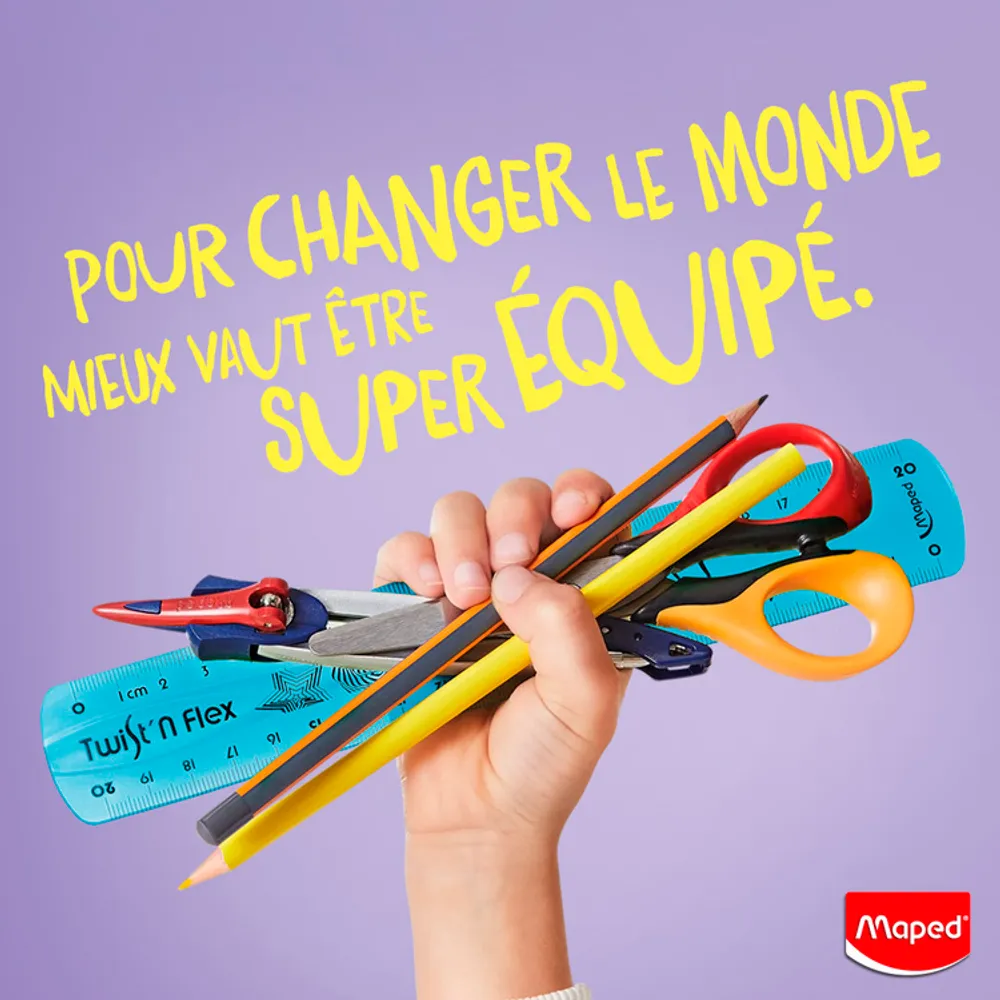
Fonts in Use: Daft Brush
Our font Daft Brush in the new visual identity of Maped, the French brand and world leader of school and office supplies. The brand is present in more than 120 countries, and we’re immensely happy to see our Daft Brush font in use in the brand’s extensive communication campaign. The font is displayed in creative and inspiring graphics, ads, spots, catalogs and websites – in which it’s also used as a webfont, rendering texts online, in addition to being used on graphics.